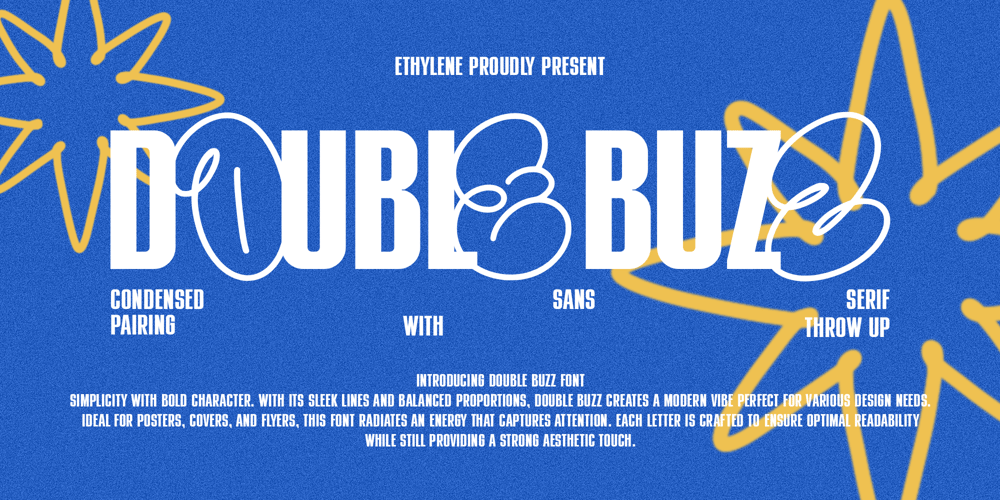
Double Buzz
Double Buzz font
Double Buzz Font Family was designed by Dicky Fuadi, Cherly Nugroho and published by Ethylene. Double Buzz contains 1 styles and family package options. Double Buzz is a fusion typeface that combines bold and condensed sans serif with throw up style. With just 1 typeface, you can get 2 styles which are also equipped with alternative features. This typeface is suitable for your various design needs. such as posters, book and magazine covers, packaging, merchandise, brochures, YouTube thumbnail, social media post, streetwear and so on.